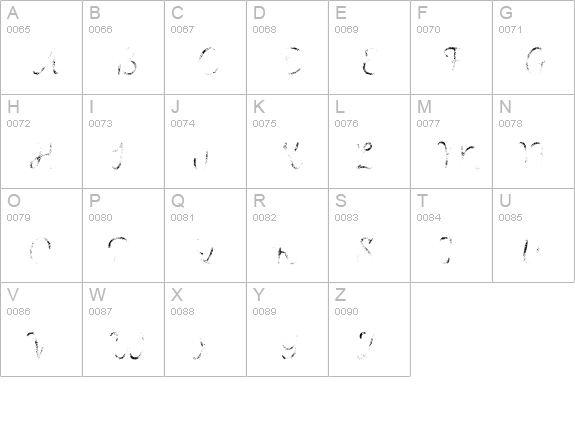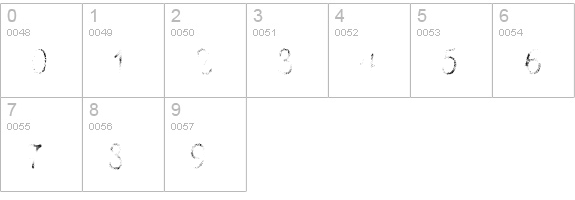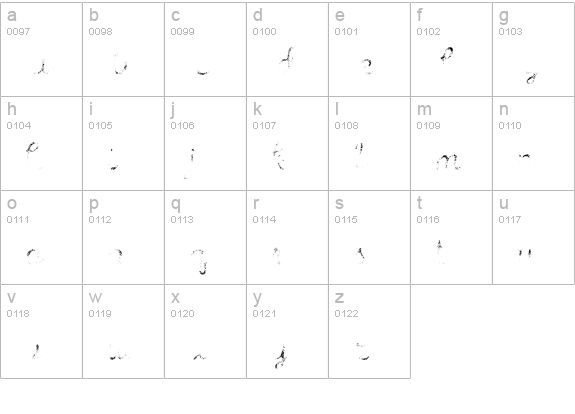
Intro Script B G Font Details
Intro Script B G font is a stunning and elegant typeface that exudes sophistication and charm. With its flowing script style and intricate details, this font is perfect for adding a touch of luxury to your designs. Whether you're working on wedding invitations, branding materials, or any other project that requires a classy look, Intro Script B G font is sure to impress. The best part is that Intro Script B G font is available for free download at FontsMarket.com. This means you can easily access this beautiful font and use it in your projects without any cost. Don't miss out on this opportunity to enhance your designs with the timeless beauty of Intro Script B G font. Download it today and elevate your creations to the next level!